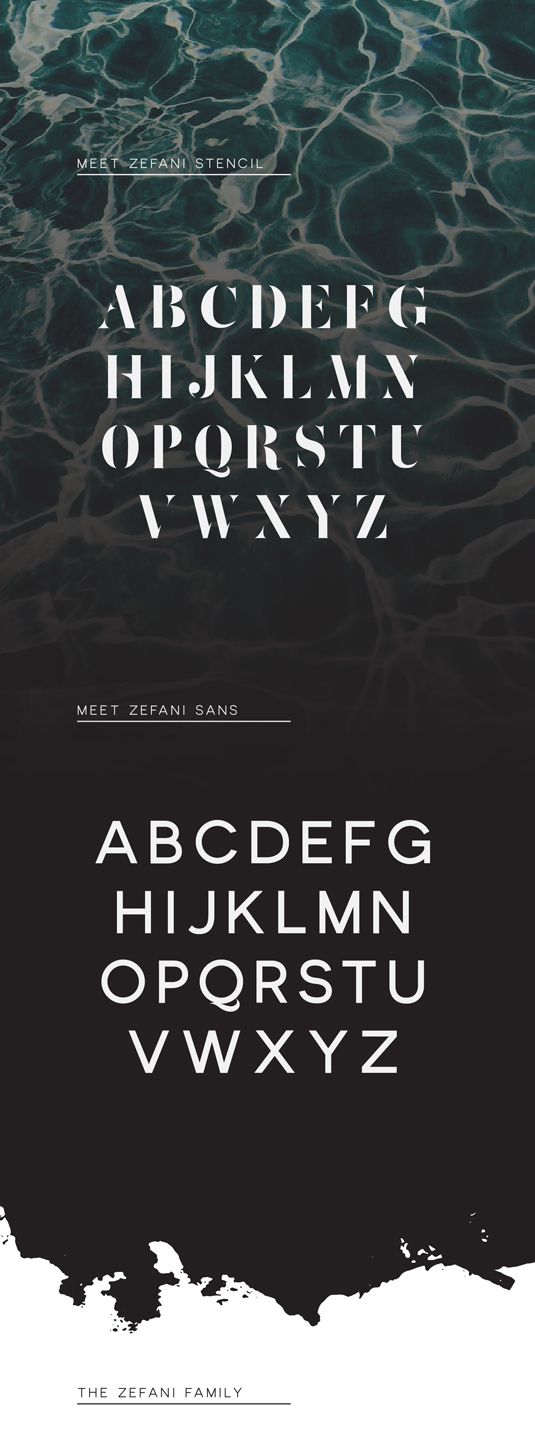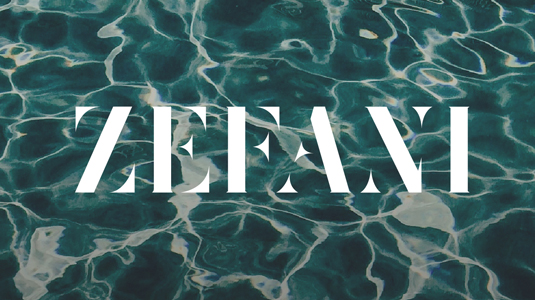
Font of the day: Zefani
Every day we showcase the best fonts on the web. Today it's Zefani by Andrew Herndon, which is free to download.
Zefani by Andrew Herndon
Graphic designer Andrew Herndon is behind today's typeface of choice, Zefani. He comments on Behance: "Stencil is a modern didot typeface with strong characters and bold lines, while it's sister font Zefani Sans is a light san-serif with monoline strokes and three different weights. This is the Zefani family."